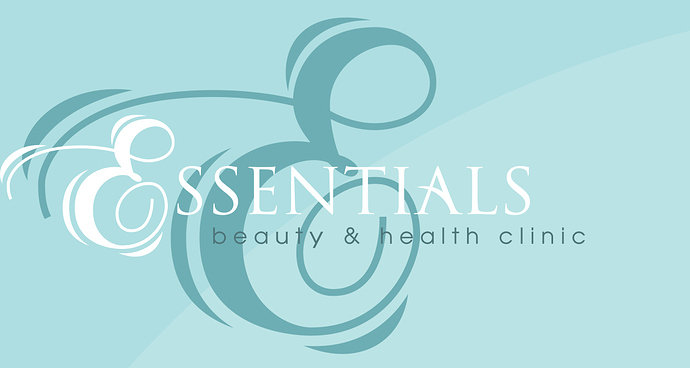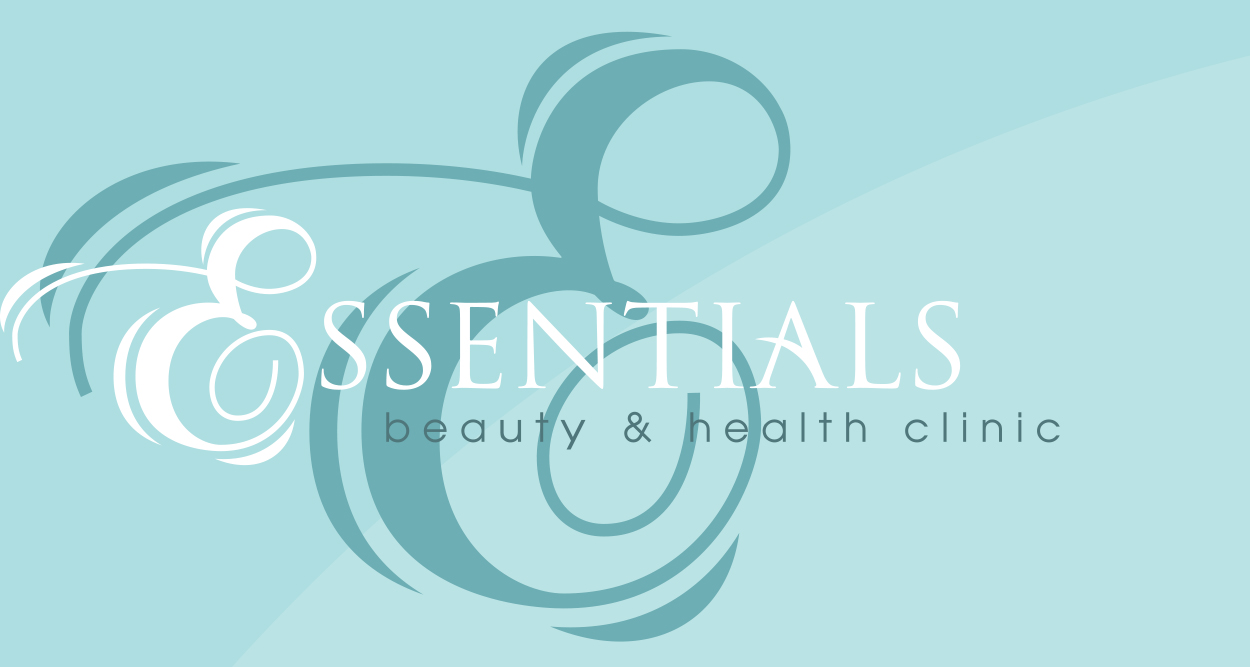
I’m struggling to identify the font with the snazzy-looking “A” in this image
Do you know what it is?
SSENTIALS is Trajan, but the A has been hand modified.